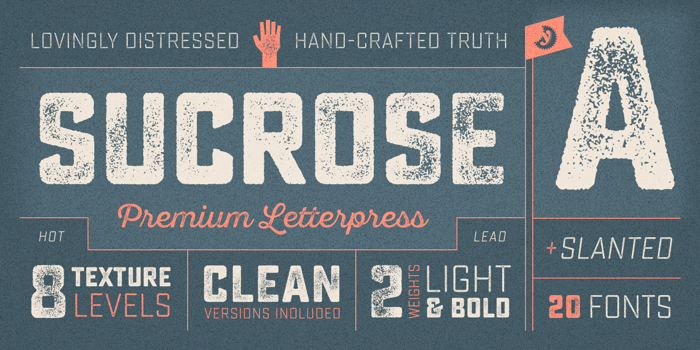
Sucrose Bold Two Font
Sucrose from Yellow Design Studio is a premium high-resolution letterpress family with rectangular letterforms and authentic, hand-crafted texture. It features 8 distress levels for all letters (4 for other characters) that can be mixed to create realistic, custom typesettings. The 20-font family includes light and bold weights plus clean and slanted versions.